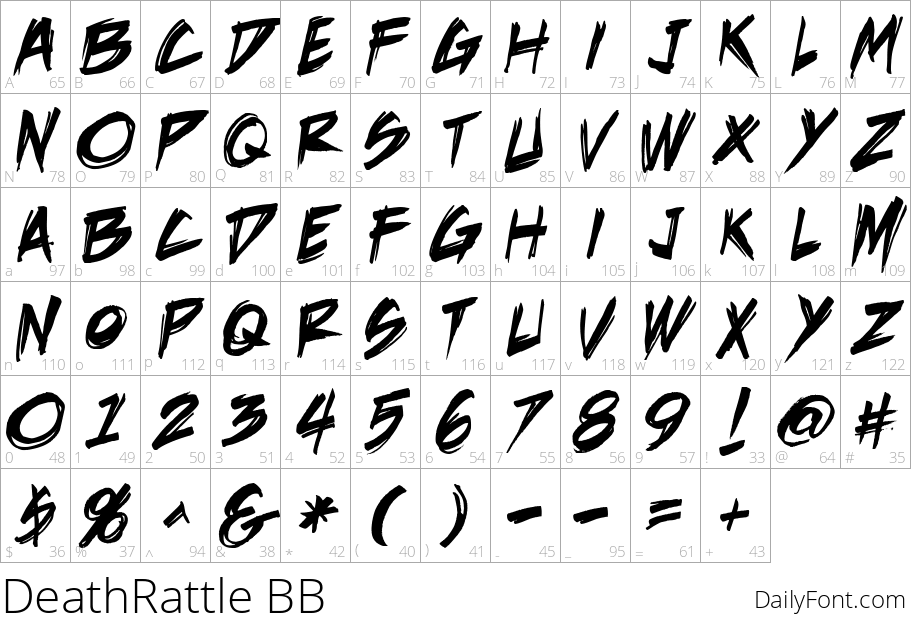
DeathRattle BB by Nate Piekos at Deathrattle Bb Font Need to rend some intestines? ️ this font has been downloaded 2,000+ times. Deathrattle bb font | dafont.com english français español deutsch italiano português. The deathrattle bb font contains 110 beautifully designed characters. Download death rattle bb font · free for personal use · need to rend some intestines? Maybe gouge out an eyeball or three? Download and install the. Deathrattle Bb Font.
Paristime Font Free Download Deathrattle Bb Font See how to download death rattle bb for free! Maybe gouge out an eyeball or three? Download and install the deathrattle bb font for free from ffonts.net. Maybe gouge out an eyeball or three? The font subfamily is regular. ️ this font has been downloaded 2,000+ times. ️ this font has been downloaded 2,000+ times. Download death rattle bb font. Deathrattle Bb Font.
CreativeBlock BB font Deathrattle Bb Font Get your copy of deathrattle, a messy sound effects font for just such occasions! ️ this font has been downloaded 2,000+ times. Download and install the deathrattle bb font for free from ffonts.net. Deathrattle bb font | dafont.com english français español deutsch italiano português. Maybe gouge out an eyeball or three? ️ this font has been downloaded 2,000+ times. Download. Deathrattle Bb Font.